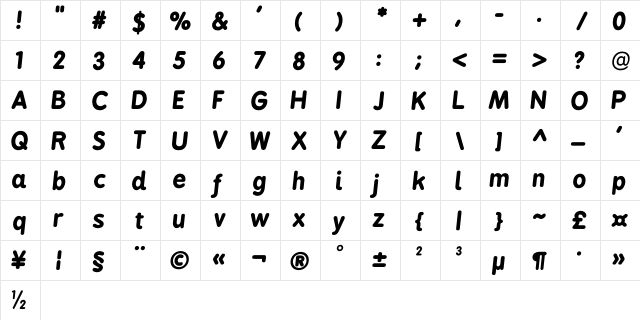
BPreplay Bold Italic
| Designer | Magenta/George Triantafyllakos |
Design Context for BPreplay Typeface
BPreplay is a composed and adaptable typeface that performs quietly and consistently across a wide range of design contexts. The dynamic lean of this cut emphasises speed and emphasis in any layout. The heavy weight commands attention and anchors typographic hierarchies.
Pro Tip: Try BPreplay for annotation and caption copy alongside an upright companion — the contrast in angle creates a dynamic but ordered typographic system.